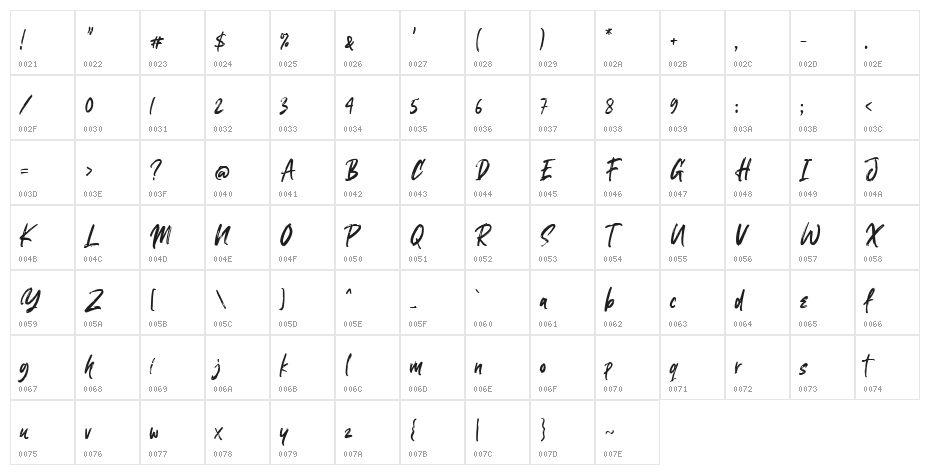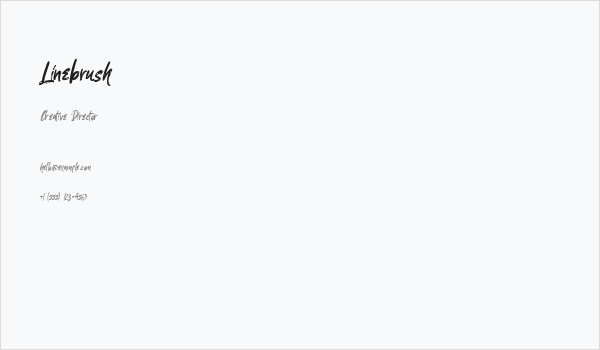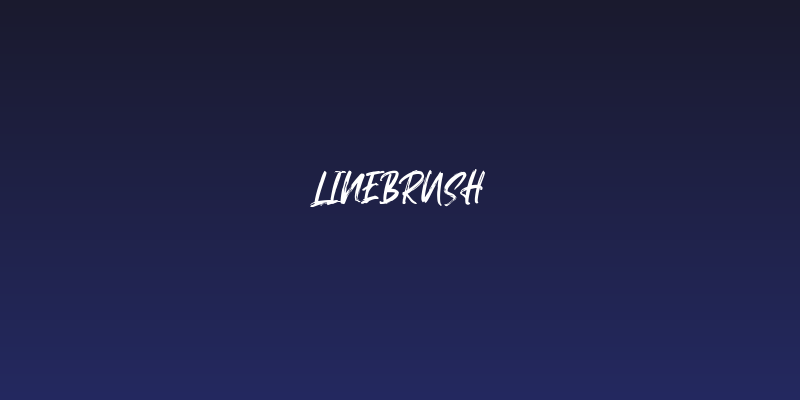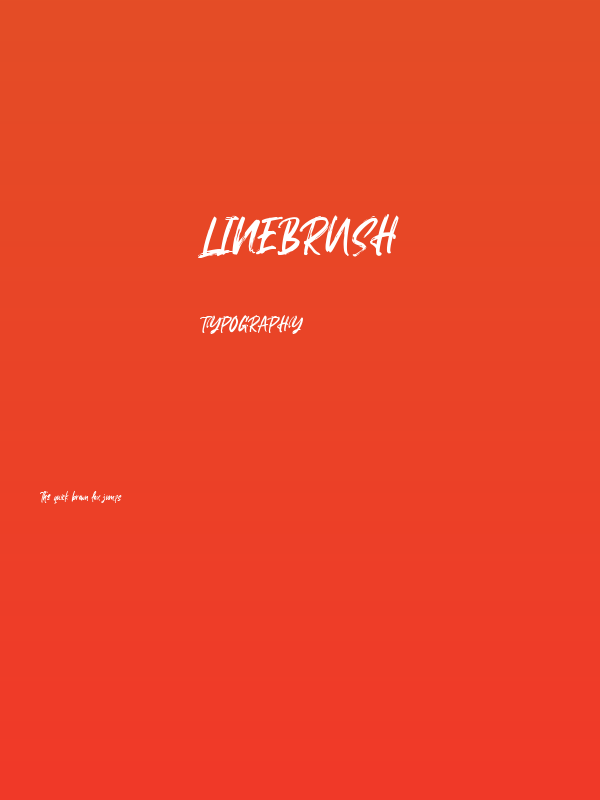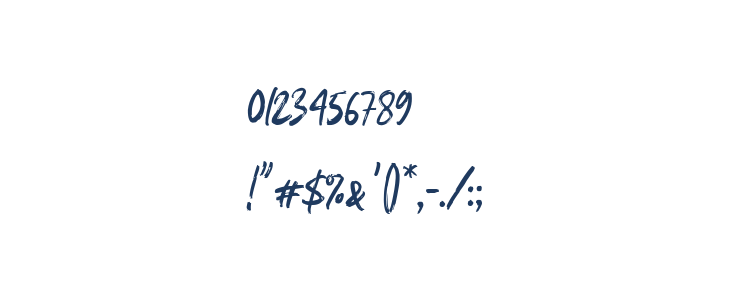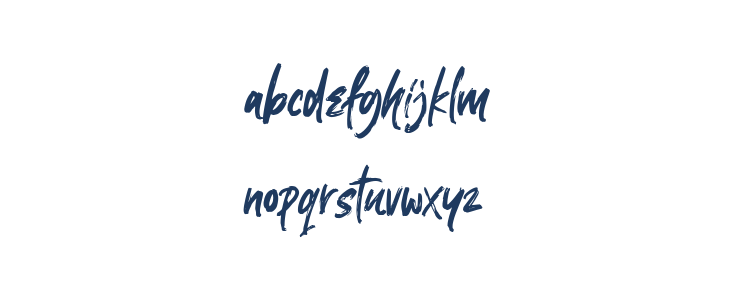
Linebrush Font
Linebrush Description
This font features a dynamic and expressive brush style, characterized by bold, sweeping strokes that convey a sense of movement and energy. The letters are crafted with a hand-painted appearance, giving them an artistic and organic feel. The uppercase characters are bold and impactful, while the lowercase letters maintain a fluid and cohesive look. Numbers and special characters are designed with the same brush-like quality, ensuring consistency across all elements. This font is ideal for projects that require a personal touch or a creative flair, making it suitable for artistic endeavors, branding, and expressive design work.
LINEBRUSH UPPERCASE
LINEBRUSH LOWERCASE
LINEBRUSH OTHER CHARS
| Proposed Projects | Ideal for branding, artistic projects, expressive designs, and any creative work requiring a personal touch. |